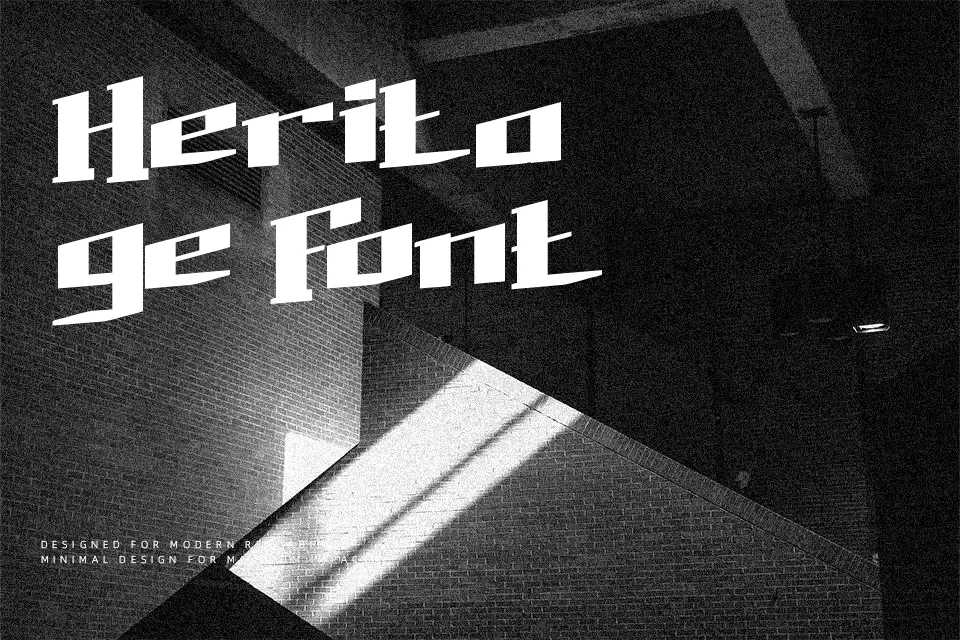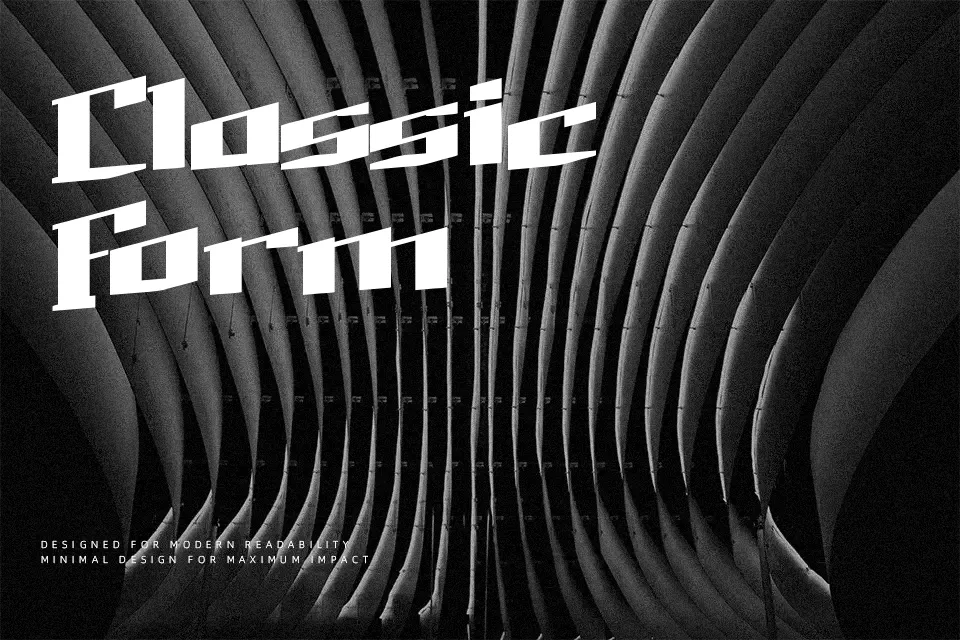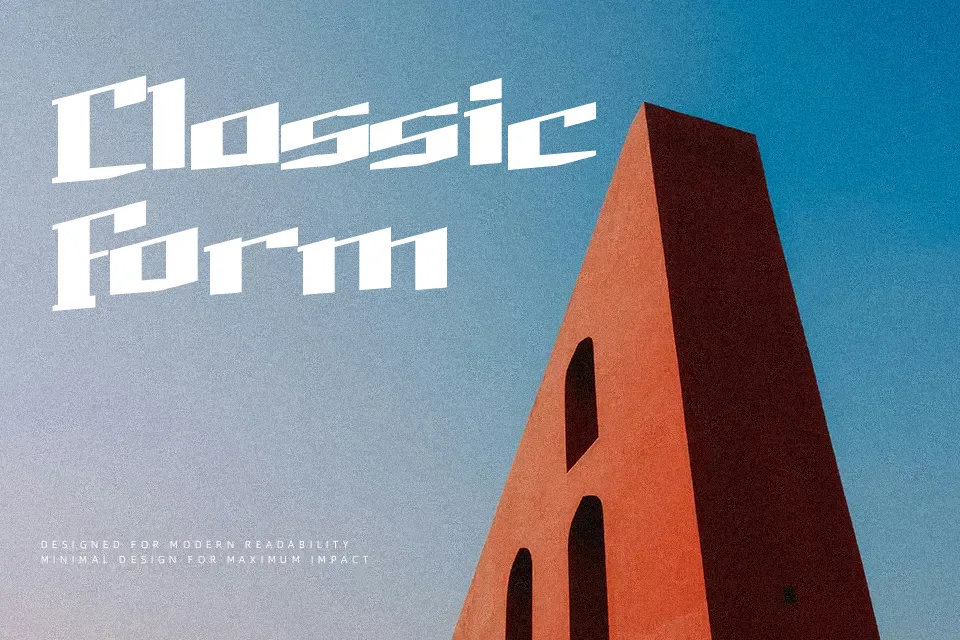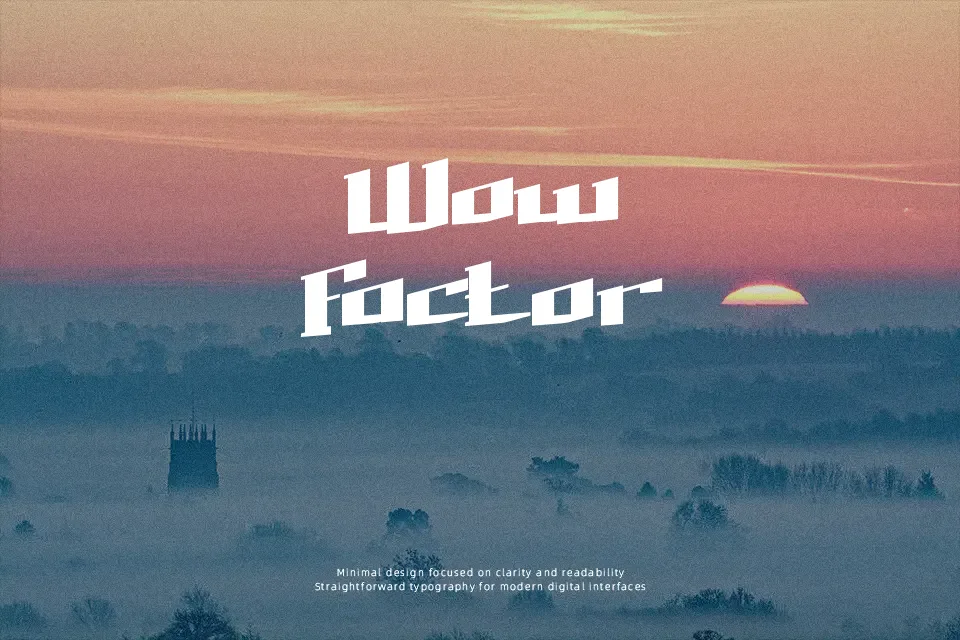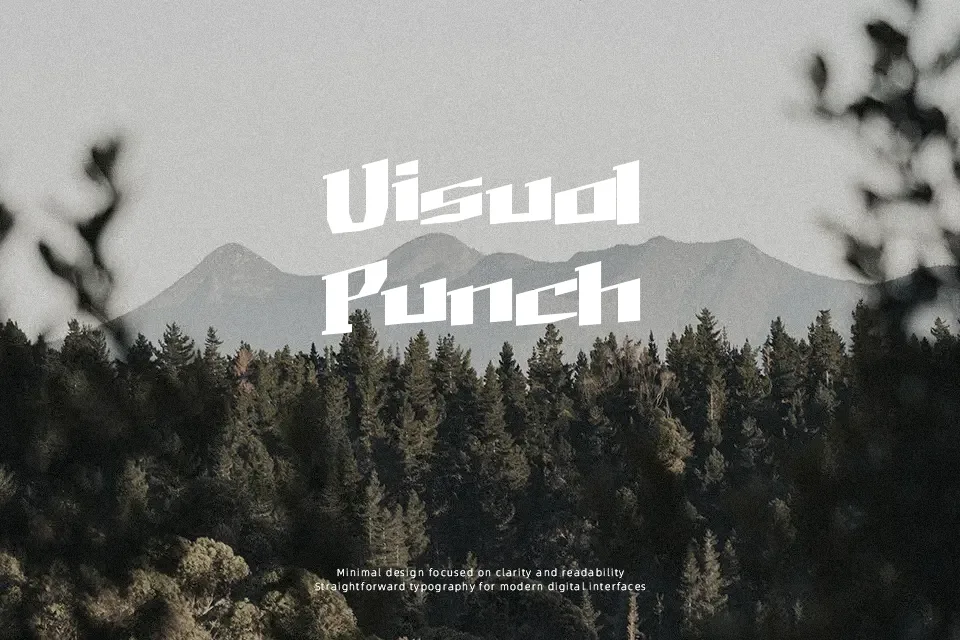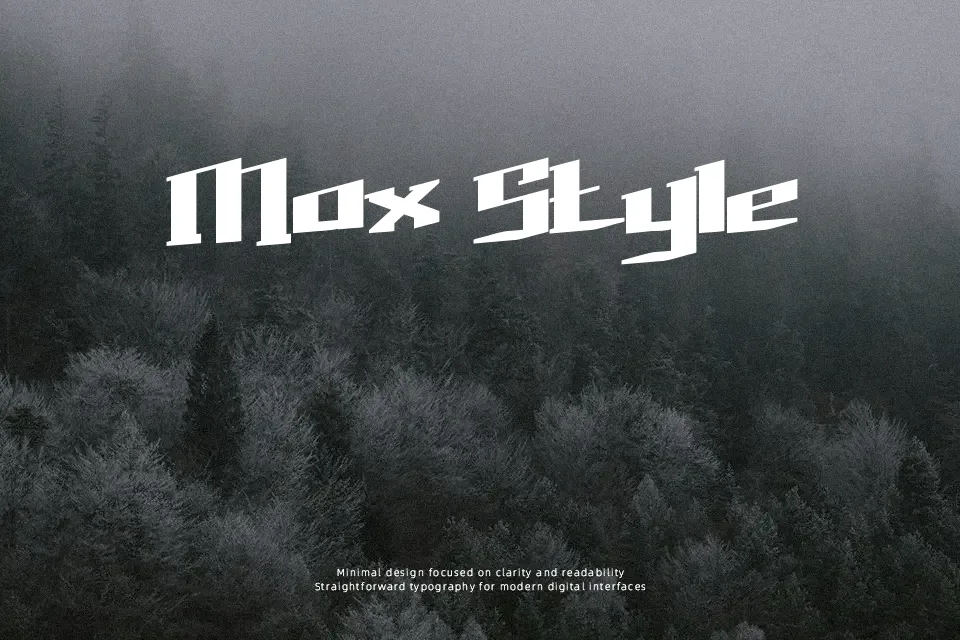
Bad Boy Font
Thick strokes, hard angles, and almost no curves — Bad Boy makes its character known fast. The font leans into a condensed geometric structure where each letter punches forward with high stroke contrast, giving headlines an assertive, street-ready energy. It works especially well on dark backgrounds or in single-line lockups where the weight reads clearly from a distance. Designers reaching for a rebellious urban tone will find it fits naturally on merchandise tags, concert flyers, and music release artwork. That said, the condensed proportions and sharp geometry make it a poor match for multi-line body copy or any context requiring warmth and approachability. At small sizes, the stroke detail collapses and legibility drops off noticeably. When it works, it works hard — but it’s a one-mood tool, not a system font.
Best For:- Streetwear and apparel label headers
– Music poster and album cover titles
– Urban event flyers and announcements
– Gaming or esports team name lockups
Not Ideal For:- Multi-line body text or paragraph copy
– Corporate branding or professional reports
– Small-size print where stroke detail is lost
– Designs requiring a warm or approachable tone
Perfect for advertising, branding, and logo, with a bold and condensed style.